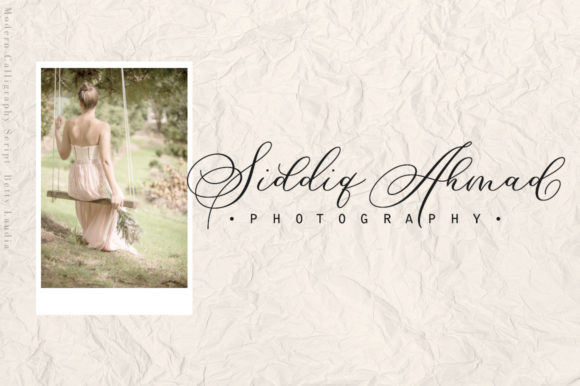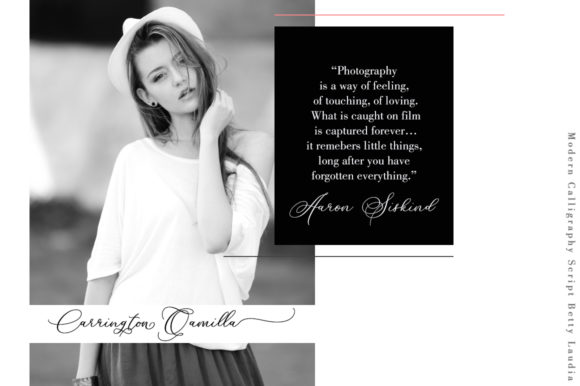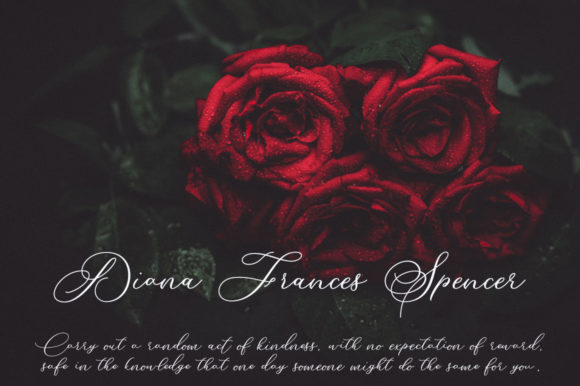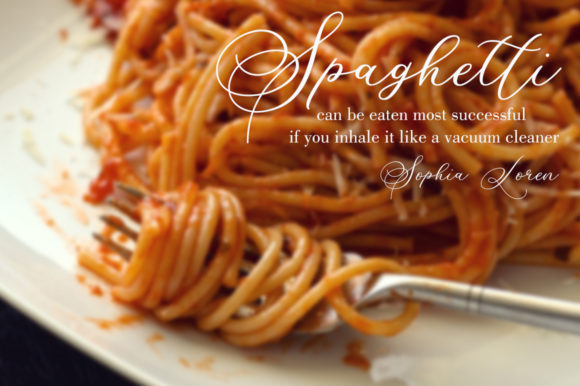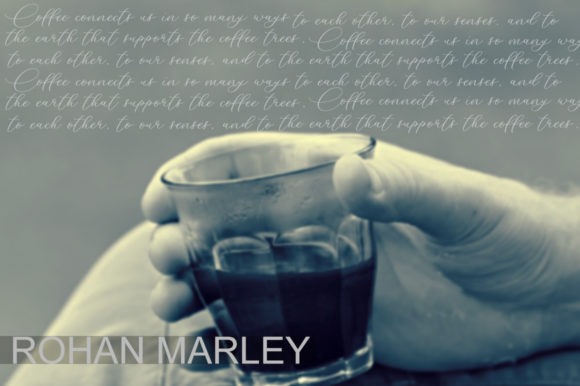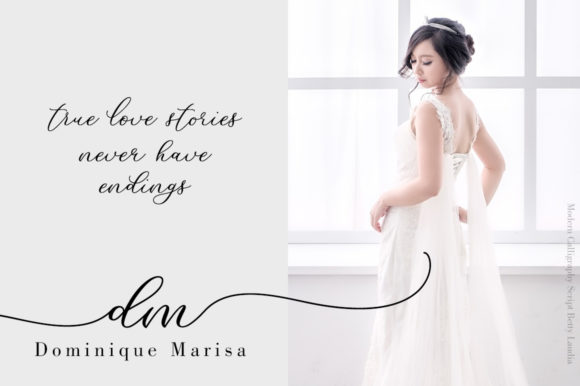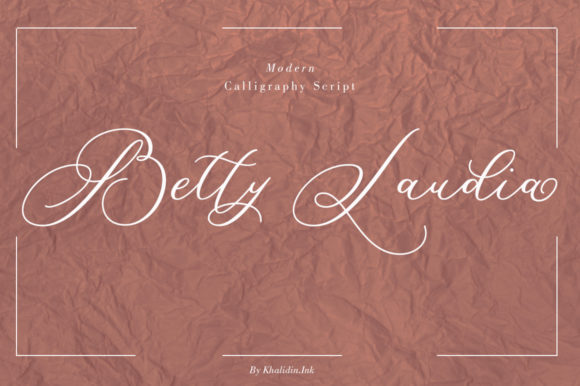
Introducing the Elegant Betty Laudia Font: Elevate Your Designs with Modern Calligraphy
In the world of typography, few fonts manage to capture the essence of elegance and sophistication as effectively as the Betty Laudia Font. This modern calligraphy script font has been gaining popularity among designers and crafters alike, and for good reason. With its irregular baseline and dancing characters, the Betty Laudia Font brings a touch of luxury and refinement to any design project.
What Makes the Betty Laudia Font Special?
The Betty Laudia Font is a versatile and elegant typeface that can add a unique flair to a wide range of design applications. Its irregular baseline gives it a dynamic, hand-written feel that sets it apart from more traditional fonts. The dancing characters, with their fluid movements and varying sizes, add to the font’s charm and character. This makes the Betty Laudia Font perfect for designs that require a feminine, elegant, and luxurious touch.
Perfect for Feminine, Elegant, and Luxurious Designs
The Betty Laudia Font is particularly well-suited for designs that require a high level of sophistication and refinement. Whether you’re creating a logo, wedding invitation, or packaging for a luxury brand, this font is sure to impress. Its elegant and flowing lines evoke a sense of glamour and poise, making it an excellent choice for designers who want to create a lasting impression.
One of the best things about the Betty Laudia Font is its versatility. It can be used for a wide range of design projects, including:
- Logos: Create a memorable and elegant logo for your brand with the Betty Laudia Font.
- Wedding Invitations: Add a touch of romance and sophistication to your wedding invitations with this beautiful font.
- Titles and Signatures: Use the Betty Laudia Font to create stunning titles and signatures that are sure to impress.
- T-Shirts and Apparel: Add a touch of elegance to your t-shirts and apparel with this modern calligraphy font.
- Letterheads and Signboards: Create professional-looking letterheads and signboards with the Betty Laudia Font.
- Labels and Posters: Use this font to create eye-catching labels and posters that are sure to grab attention.
Why Designers and Crafters Love the Betty Laudia Font
Designers and crafters love the Betty Laudia Font for its unique and elegant style. Here are just a few reasons why:
- High-Quality Design: This font is designed with high-quality and precision, ensuring that it looks great in any design project.
- Unique Style: The Betty Laudia Font has a unique and distinctive style that sets it apart from other fonts.
- Versatility: This font can be used for a wide range of design projects, making it a great addition to any designer’s toolkit.
In conclusion, the Betty Laudia Font is a modern calligraphy script font that is perfect for designers and crafters who want to add a touch of elegance and sophistication to their design projects. With its irregular baseline and dancing characters, this font is sure to impress. Whether you’re creating a logo, wedding invitation, or packaging for a luxury brand, the Betty Laudia Font is an excellent choice. So why wait? Download the Betty Laudia Font today and start elevating your designs to new heights!